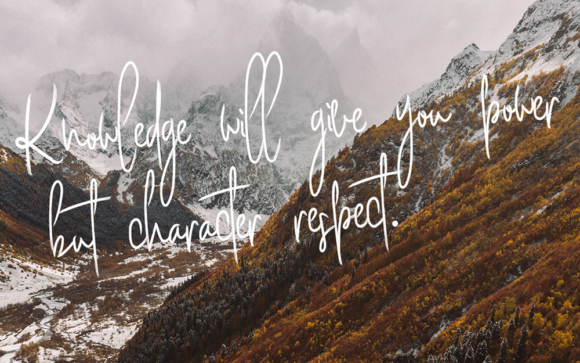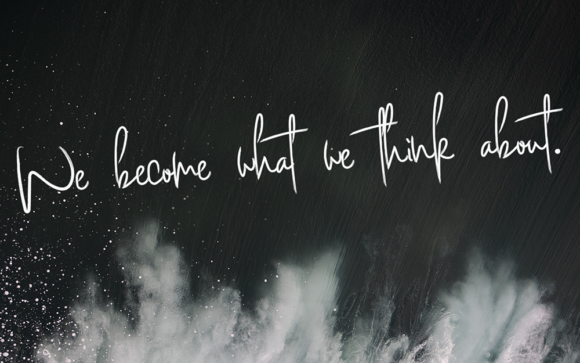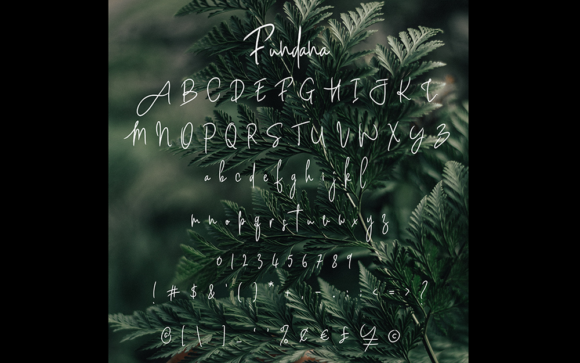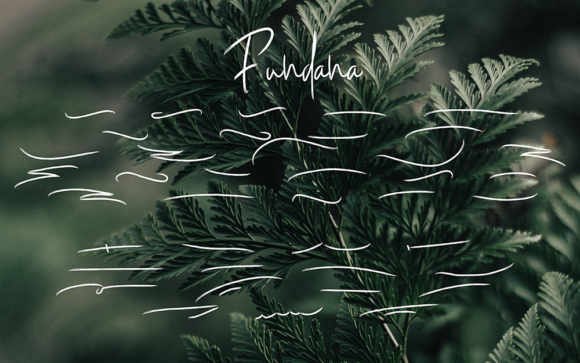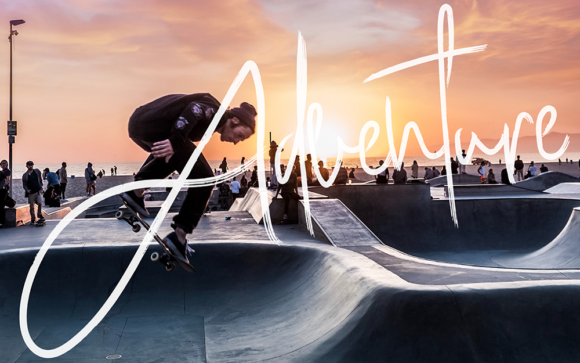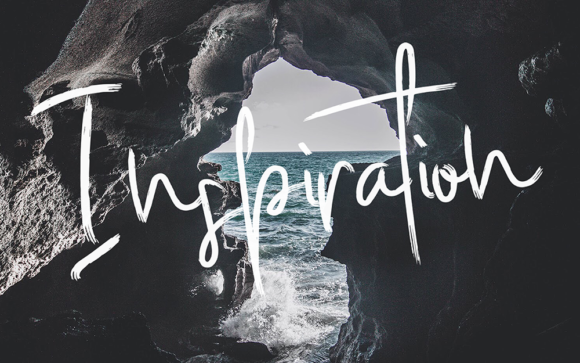
Introducing Fundana Font: The Playful Brush Font for Creative Designs
Are you a designer or crafter looking for a font that can add a touch of playfulness and creativity to your projects? Look no further than Fundana Font! This delightful brush font is perfect for a wide range of applications, from social media designs to labeling, covers, posters, and printable projects. In this article, we’ll dive into the features and benefits of Fundana Font, and explore how it can elevate your designs to the next level.
What is Fundana Font?
Fundana Font is a carefully crafted brush font that exudes a sense of playfulness and fun. Its unique, hand-painted style makes it perfect for designs that require a personal touch. With its great readability, Fundana Font is ideal for use in a variety of projects, including social media graphics, labels, posters, and more.
Key Features of Fundana Font
- Playful Brush Style: Fundana Font features a beautiful, hand-painted brush style that adds a touch of whimsy to any design.
- Great Readability: Despite its playful nature, Fundana Font remains highly readable, making it perfect for use in a wide range of applications.
- Versatility: Fundana Font can be used in a variety of projects, from social media designs to labeling, covers, posters, and printable projects.
Uses for Fundana Font
Fundana Font is an incredibly versatile font that can be used in a wide range of applications. Here are just a few ideas to get you started:
- Social Media Designs: Use Fundana Font to create eye-catching social media graphics, including Facebook posts, Instagram stories, and Twitter headers.
- Labeling: Add a personal touch to your labels with Fundana Font, perfect for crafters, small business owners, and DIY enthusiasts.
- Covers and Posters: Use Fundana Font to create stunning covers and posters for events, promotions, and products.
- Printable Projects: Fundana Font is perfect for printable projects, such as planners, journals, and art prints.
Benefits of Using Fundana Font
So why choose Fundana Font for your next design project? Here are just a few benefits of using this delightful brush font:
- Adds a Personal Touch: Fundana Font’s hand-painted style adds a personal touch to any design, making it perfect for crafters and small business owners.
- Easy to Read: Despite its playful nature, Fundana Font remains highly readable, making it perfect for use in a wide range of applications.
- Increases Engagement: The playful, whimsical nature of Fundana Font is sure to grab attention and increase engagement with your audience.
Tips for Using Fundana Font
Here are a few tips for getting the most out of Fundana Font:
- Use it Sparingly: While Fundana Font is perfect for headlines and titles, it can be overwhelming if used excessively. Use it sparingly to add a touch of playfulness to your designs.
- Experiment with Colors: Fundana Font looks great in a variety of colors, so don’t be afraid to experiment and find the perfect hue for your design.
- Pair it with Other Fonts: Fundana Font pairs perfectly with a range of other fonts, so feel free to get creative and experiment with different combinations.
In conclusion, Fundana Font is a playful brush font that is perfect for designers and crafters looking to add a touch of whimsy to their projects. With its great readability and versatility, Fundana Font is ideal for use in a wide range of applications, from social media designs to labeling, covers, posters, and printable projects. So why not give Fundana Font a try and see how it can elevate your designs to the next level?